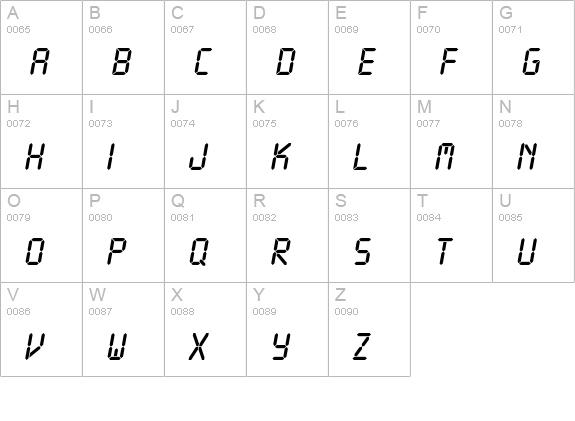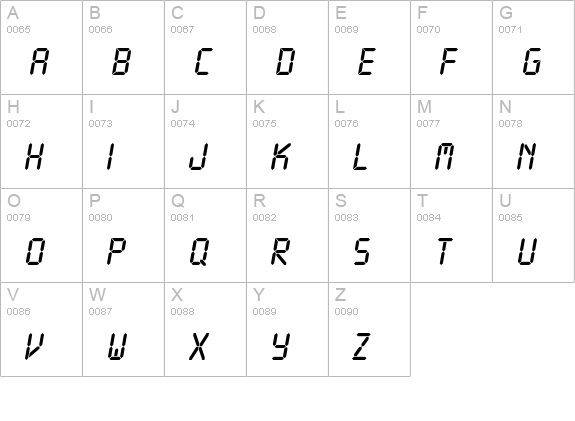
LCD Plain Font Details
LCD Plain font is a sleek and modern typeface that exudes a sense of sophistication and professionalism. Its clean lines and sharp edges make it perfect for any design or project that requires a contemporary and polished look. This font is particularly well-suited for digital displays, signage, and tech-related designs. LCD Plain font offers a simplicity that enhances readability, making it ideal for conveying important information or messages. Whether it's for a website, an app, or a digital billboard, this font ensures that your content is easily legible and visually pleasing. One of the best things about LCD Plain font is that it is freely available to download at FontsMarket.com. This means that you can add this fantastic font to your collection without any cost. It's an excellent opportunity to enhance your design library with a high-quality typeface that will elevate your projects to the next level. Don't miss out on the chance to utilize LCD Plain font in your designs. Its versatility and clean aesthetic will make your content stand out and leave a lasting impression on your audience. Download this font for free today and unlock a world of possibilities for your creative endeavors.